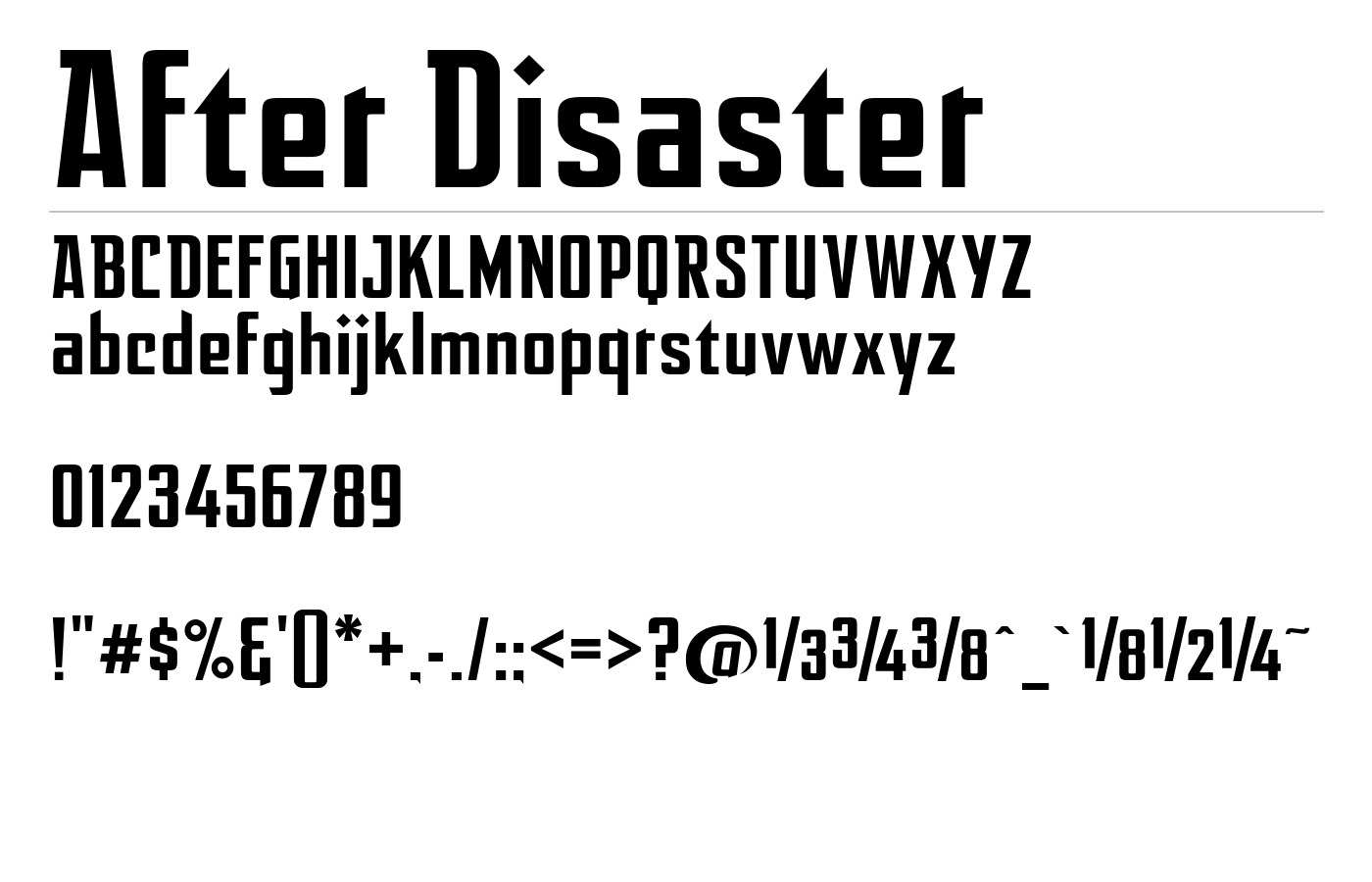
After Disaster is a bold, condensed sans serif font with sharp edges and a strong geometric feel that commands attention. Its high x-height and uniform stroke weight create a modern, industrial vibe that works perfectly for impactful headlines, posters, or branding needing a serious and assertive tone. This font’s distinctive letterforms and sleek structure make it ideal for projects seeking a contemporary, edgy style with clear readability.
After Disaster Font
About After Disaster Font
| Font family | After Disaster Font |